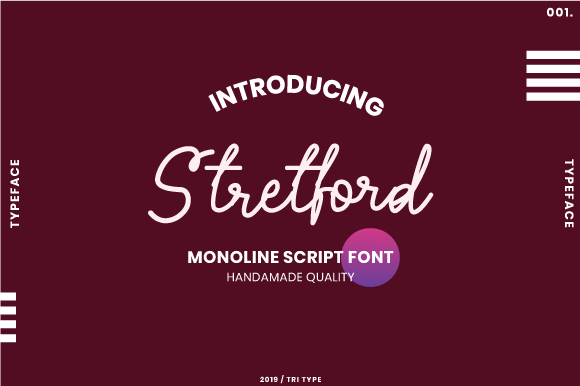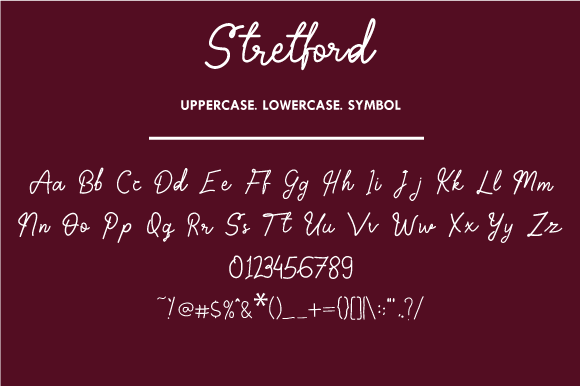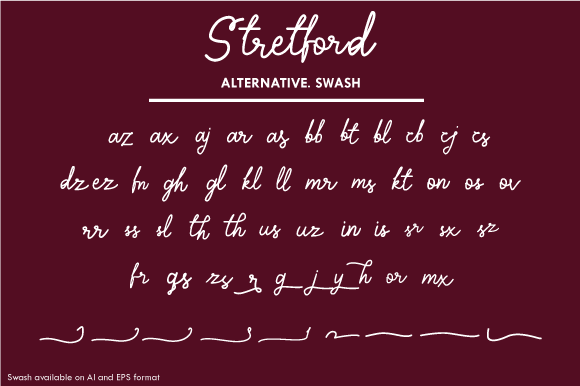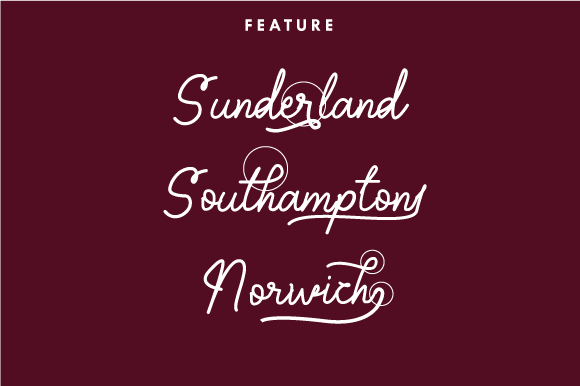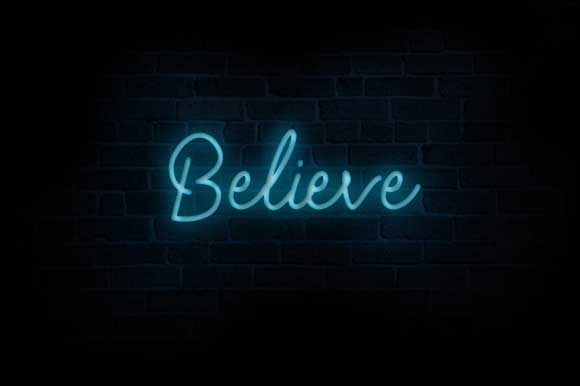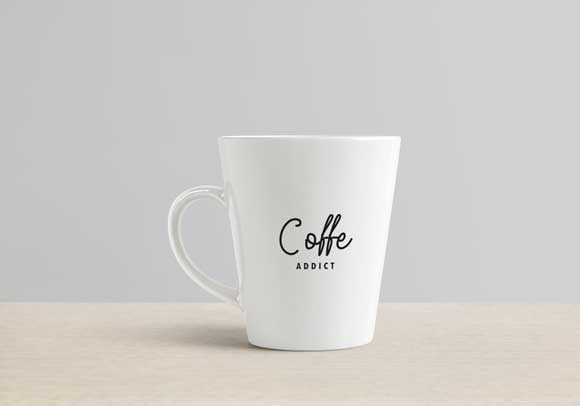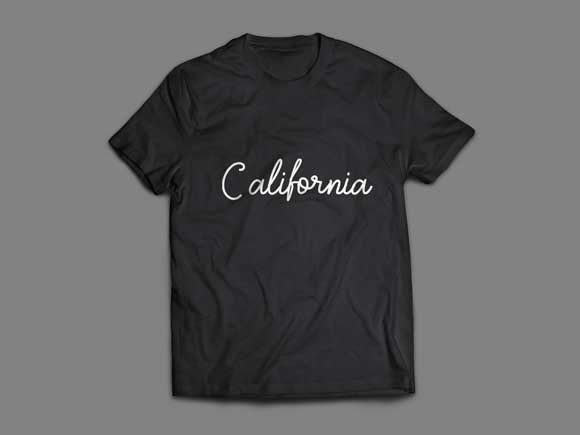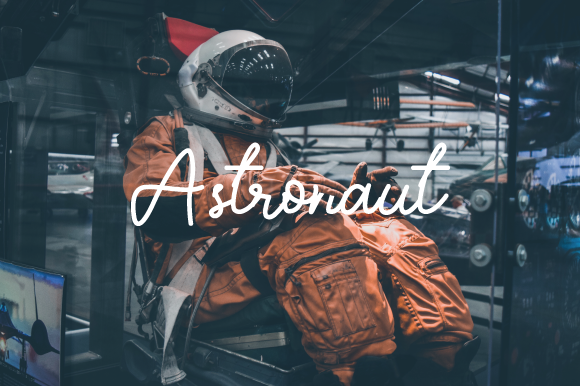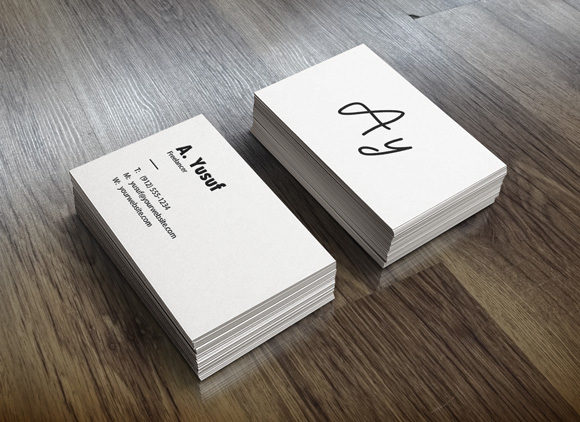
HomeScript FontsStretford Font Script Fonts Stretford Font FacebookXPinterestWhatsApp Stretford Font Poster 2 Stretford Font Poster 3 Stretford Font Poster 4 Stretford Font Poster 5 Stretford Font Poster 6 Stretford Font Poster 7 Stretford Font Poster 8 Stretford Font Poster 9 About Stretford Font Stretford is a inspiring and fun script font with a cute feel. Get inspired by its unique charm! DOWNLOAD NOW People also explored Wedding Font Justmine Font Morgan Famous Font Skylake Modern Calligraphy Font White Coffee Mug Mock Up on Wood Storytime Font Andora The Heart of Everything Font Belgina Galina Font 320 0 TagsStretford Font Previous articleReally Better FontNext articleBreak a Leg Font LEAVE A REPLY Cancel reply Comment: Please enter your comment! Name:* Please enter your name here Email:* You have entered an incorrect email address! Please enter your email address here Website: Save my name, email, and website in this browser for the next time I comment. Personal Use Free Osaka Personal Use Free Read more about this font Gagalin Personal Use Free Read more about this font Cataleya Personal Use Free Read more about this font Groomer Personal Use Free Read more about this font BLOG Free Fonts Risk: Why Free Fonts Can Be Dangerous for Designers Free Fonts Risk: Why Free Fonts Can Be Dangerous for Designers Using free fonts is a common practice in web and graphic design. However, the... Transform Your Website: Elevate Your Typography with 7 Best Web Font Generators How to Install and Use Fonts on Windows, macOS, and Web Projects Where to Buy American Fonts Online in 2024